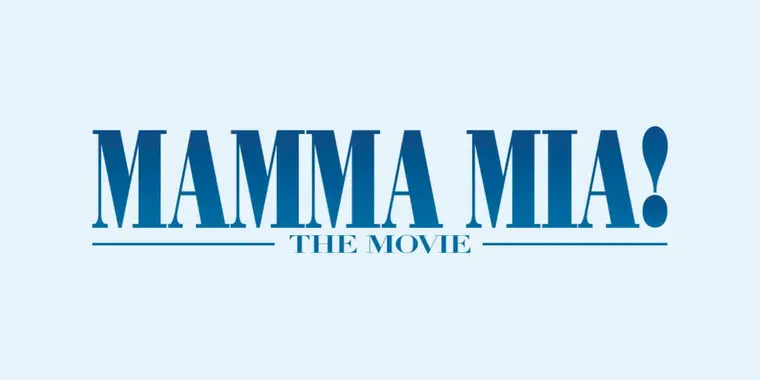
Mamma Mia Font is a typeface extracted from the funny movie from 2008 that is based on a music from 1999 with the same name. The writing style of the movie title on the poster looks a lot like Bodoni Poster Compressed, but with a different exclamation mark.